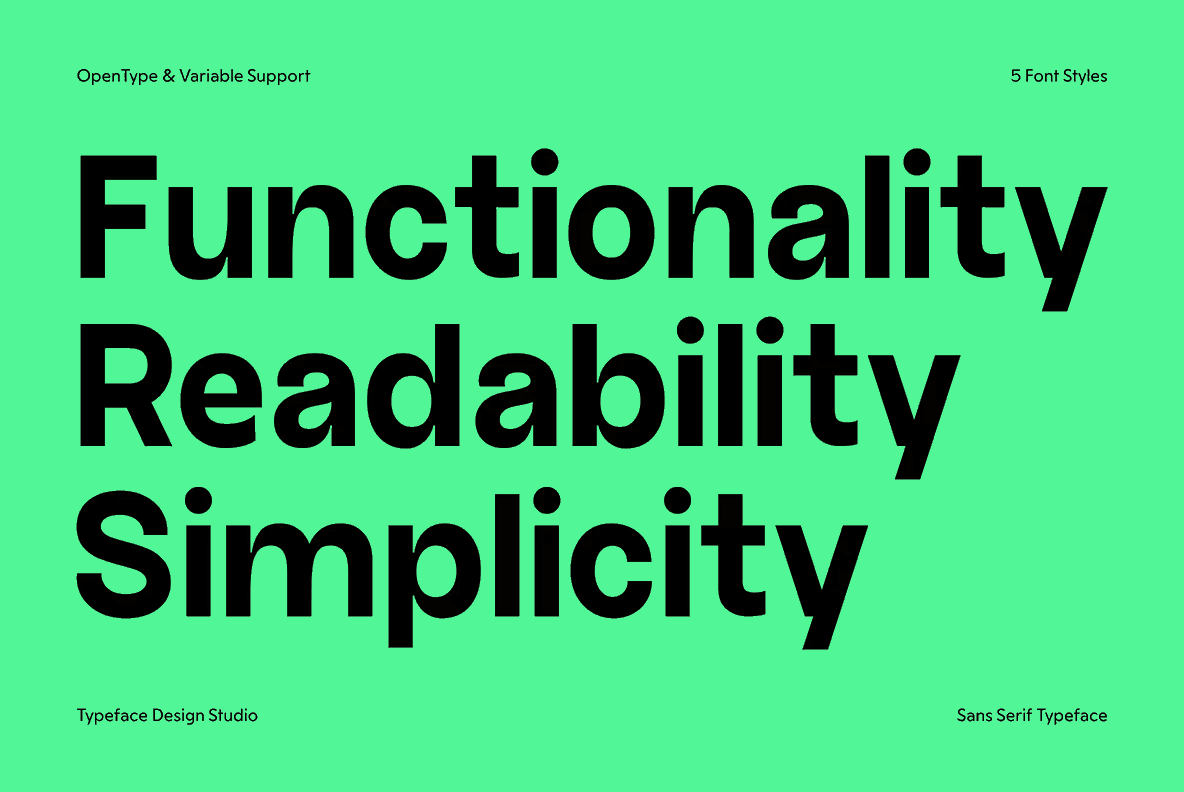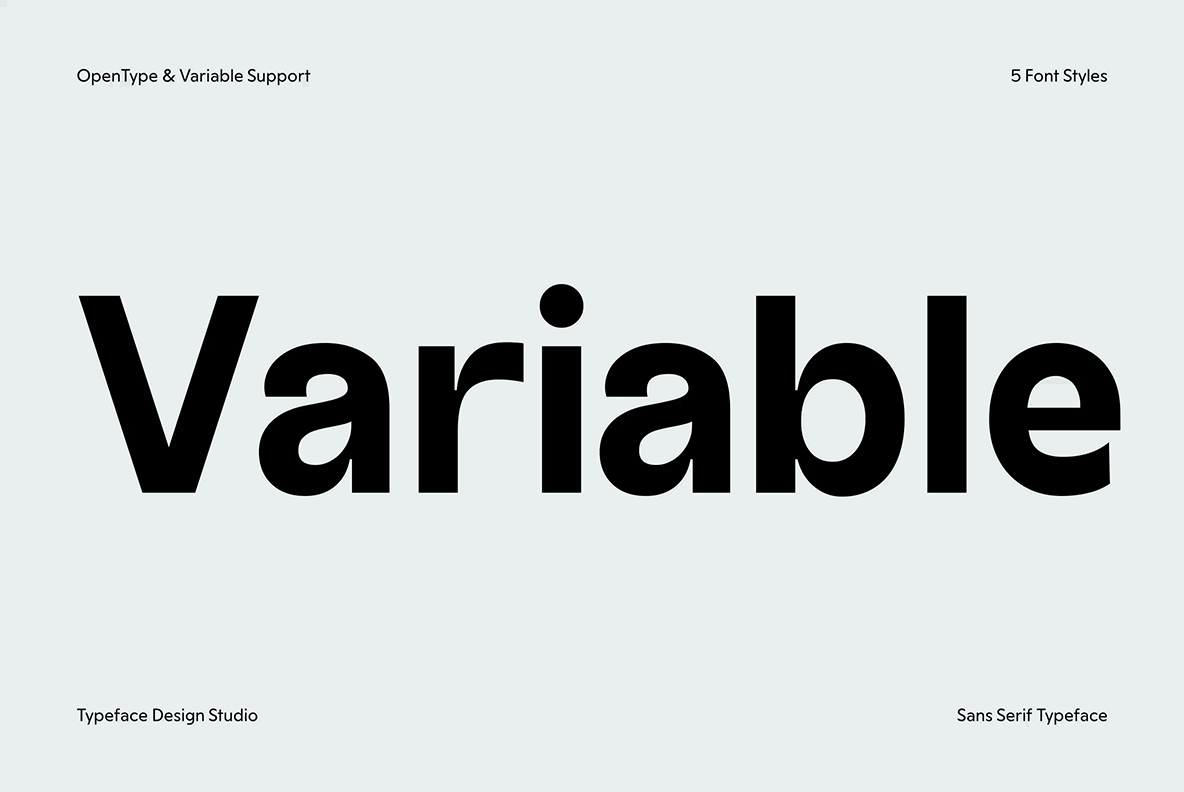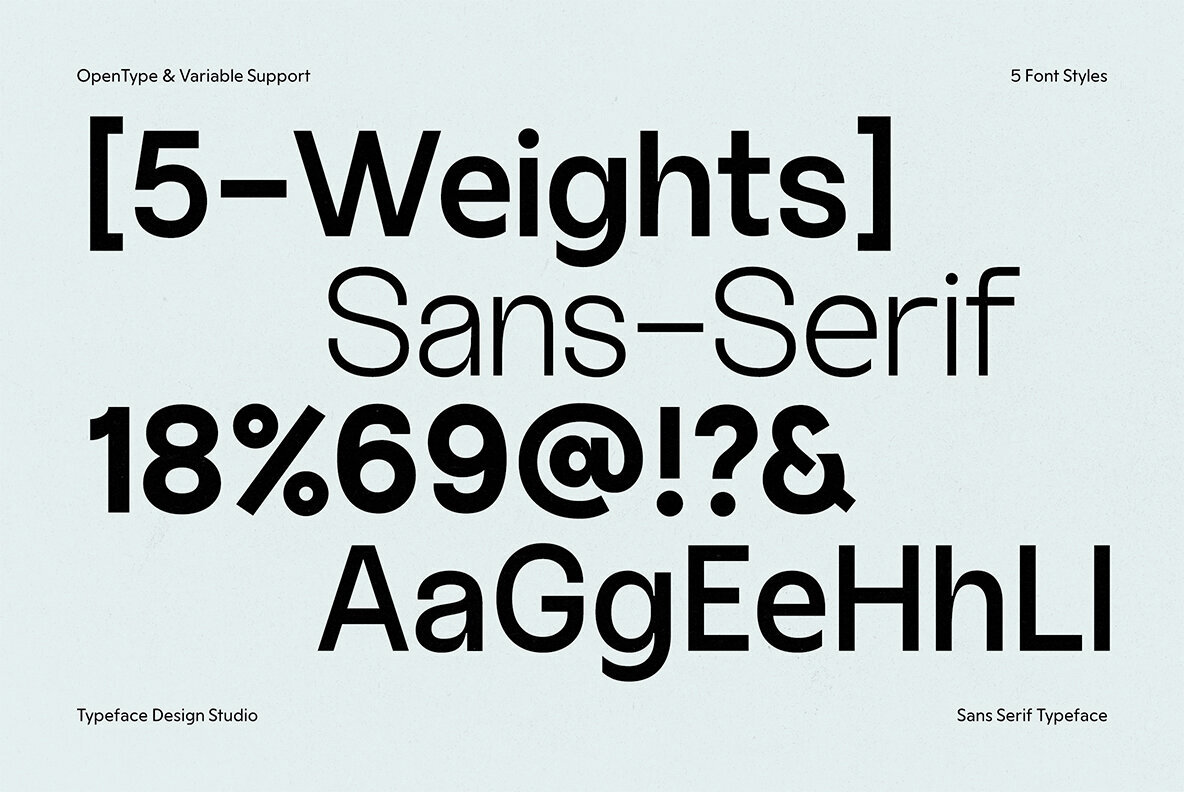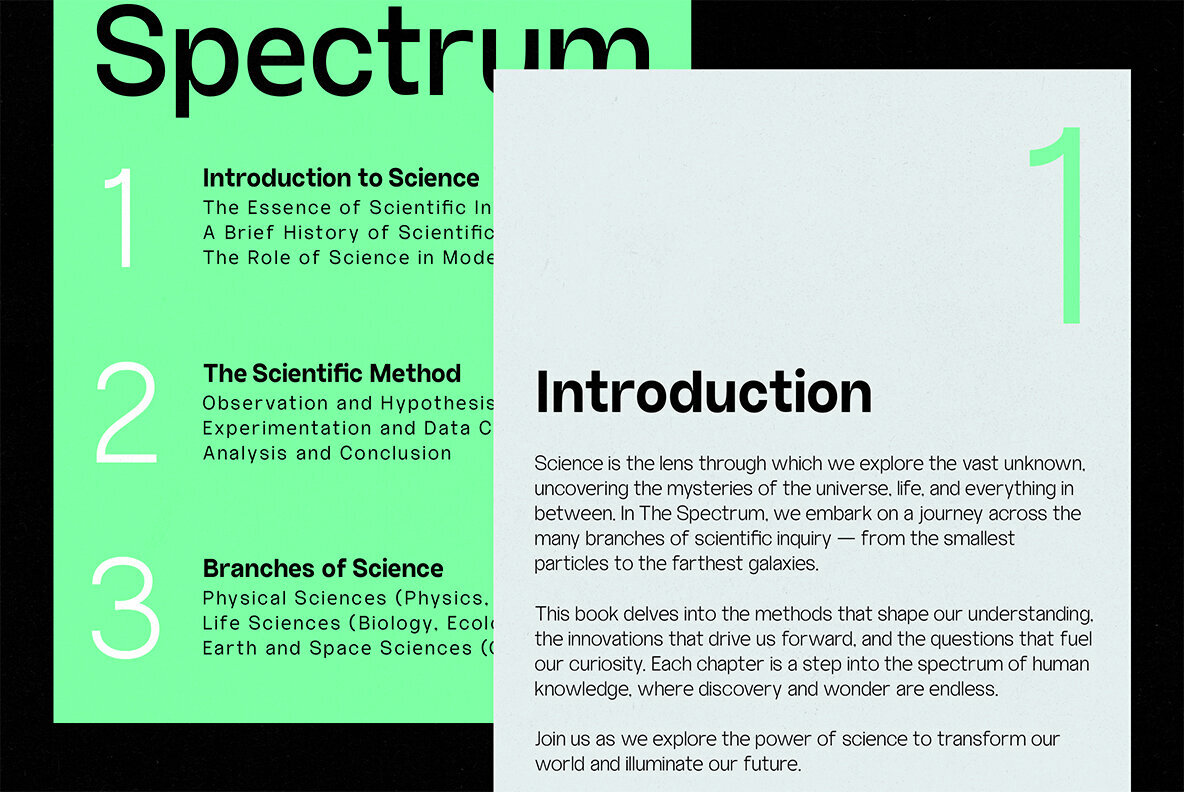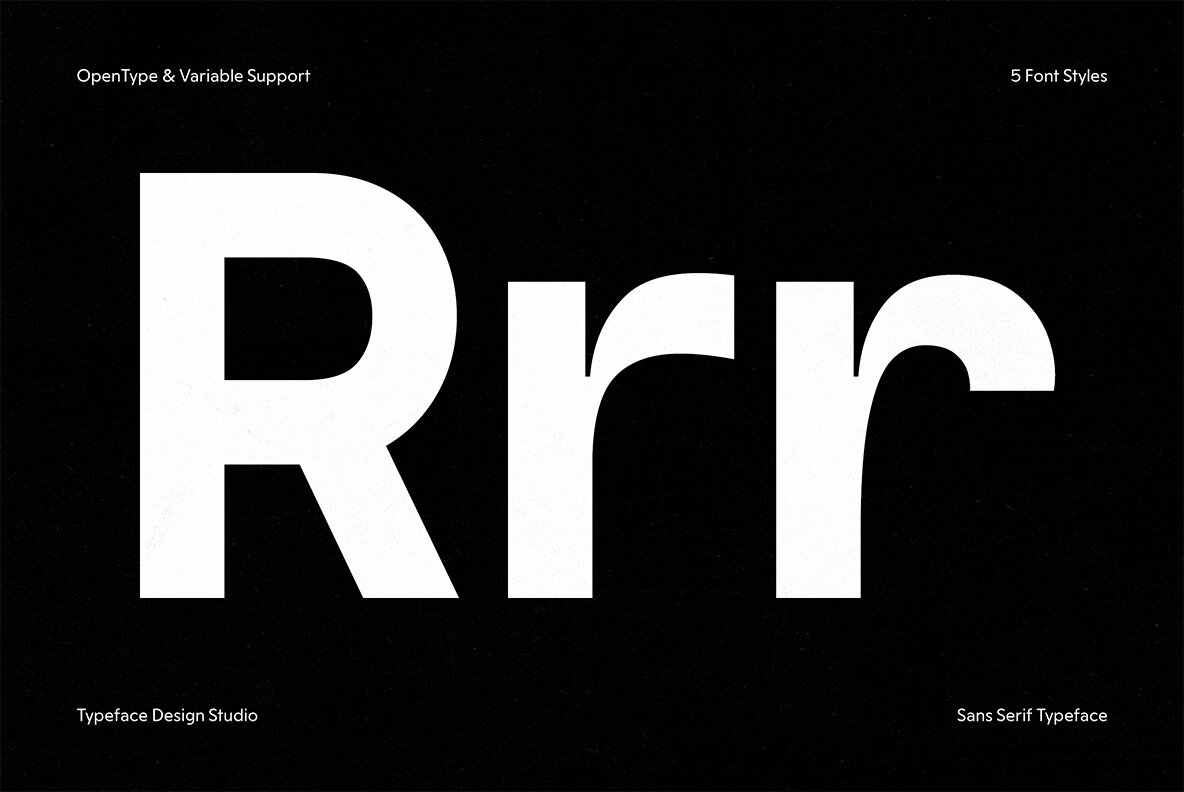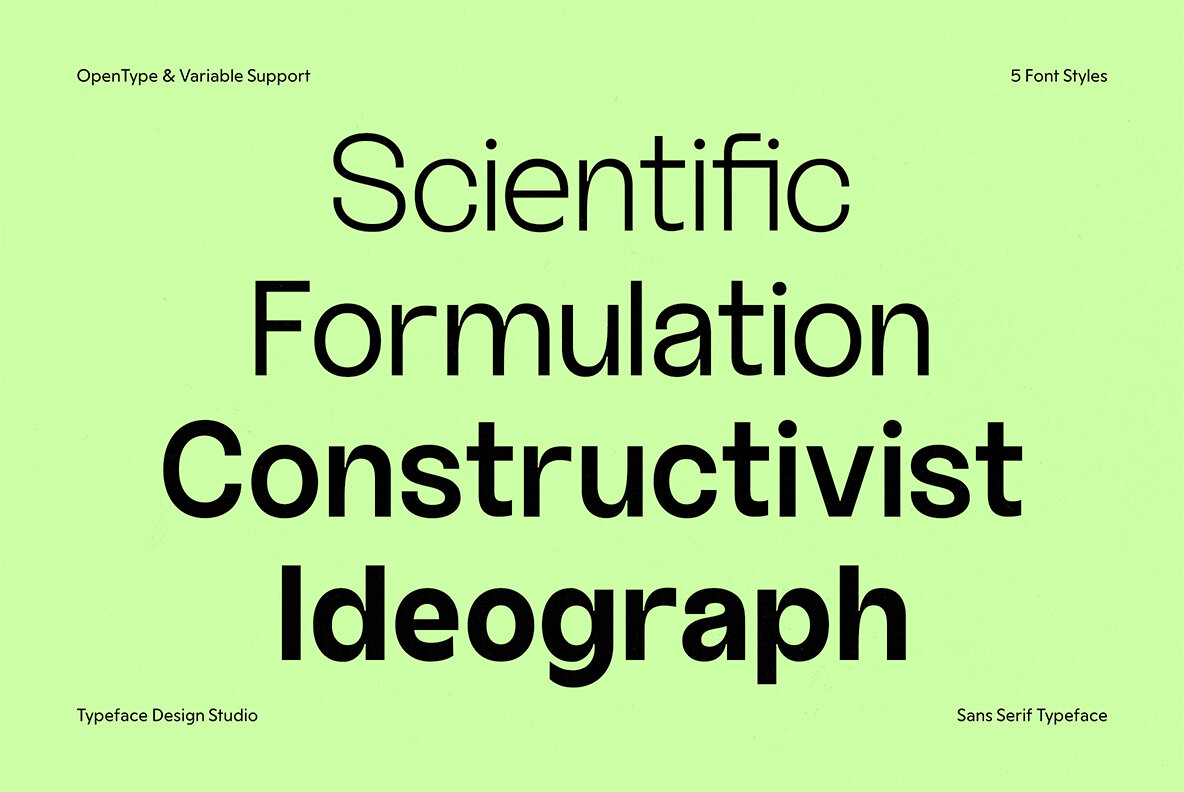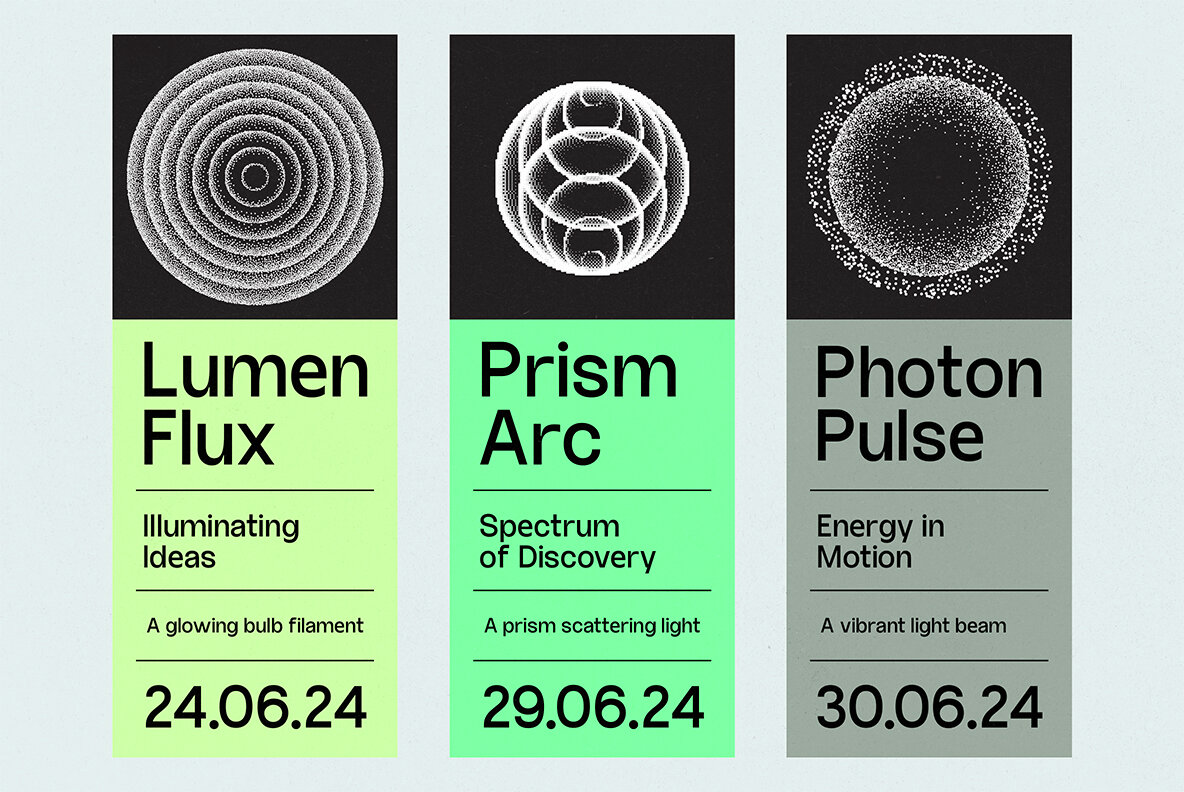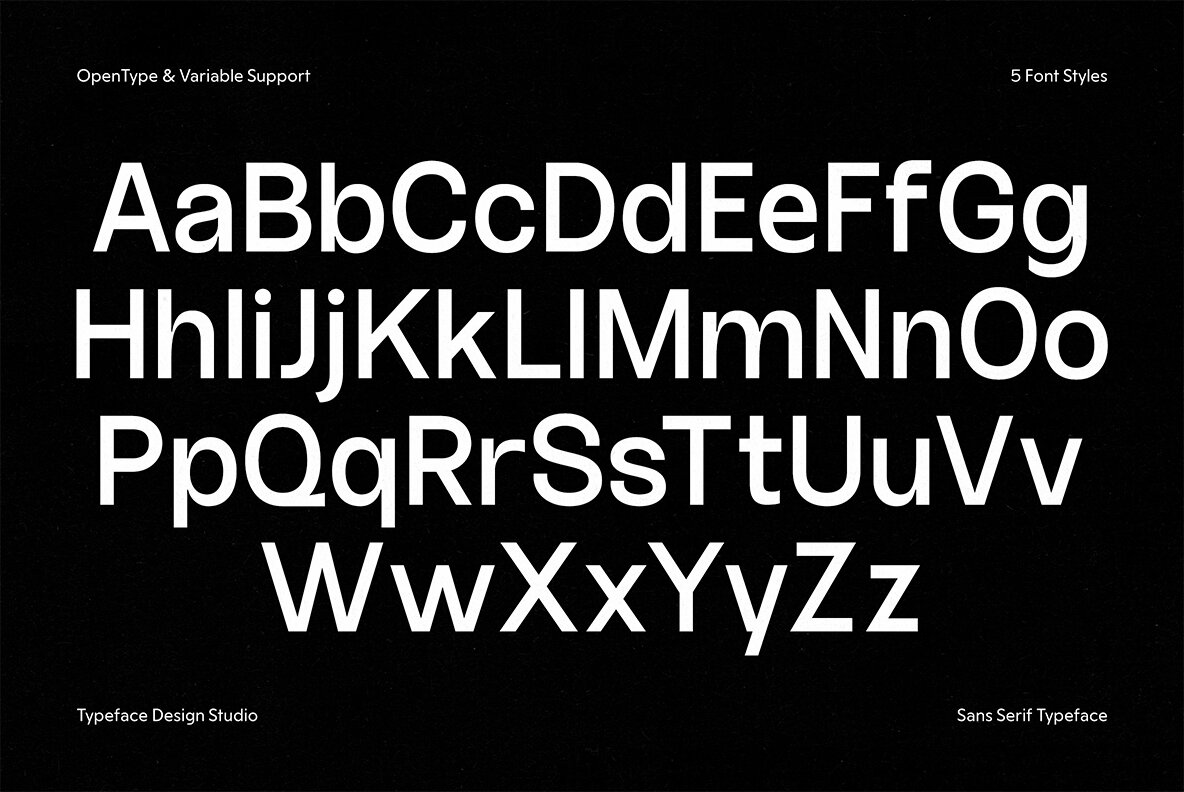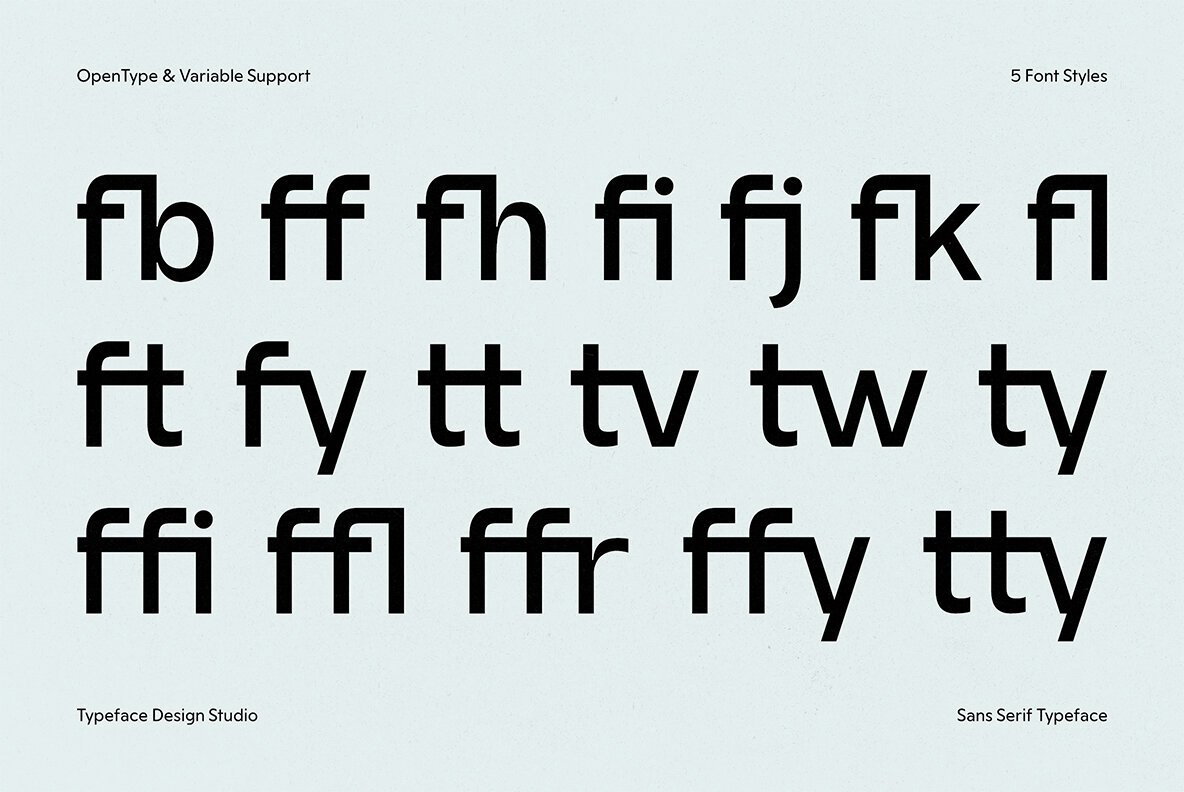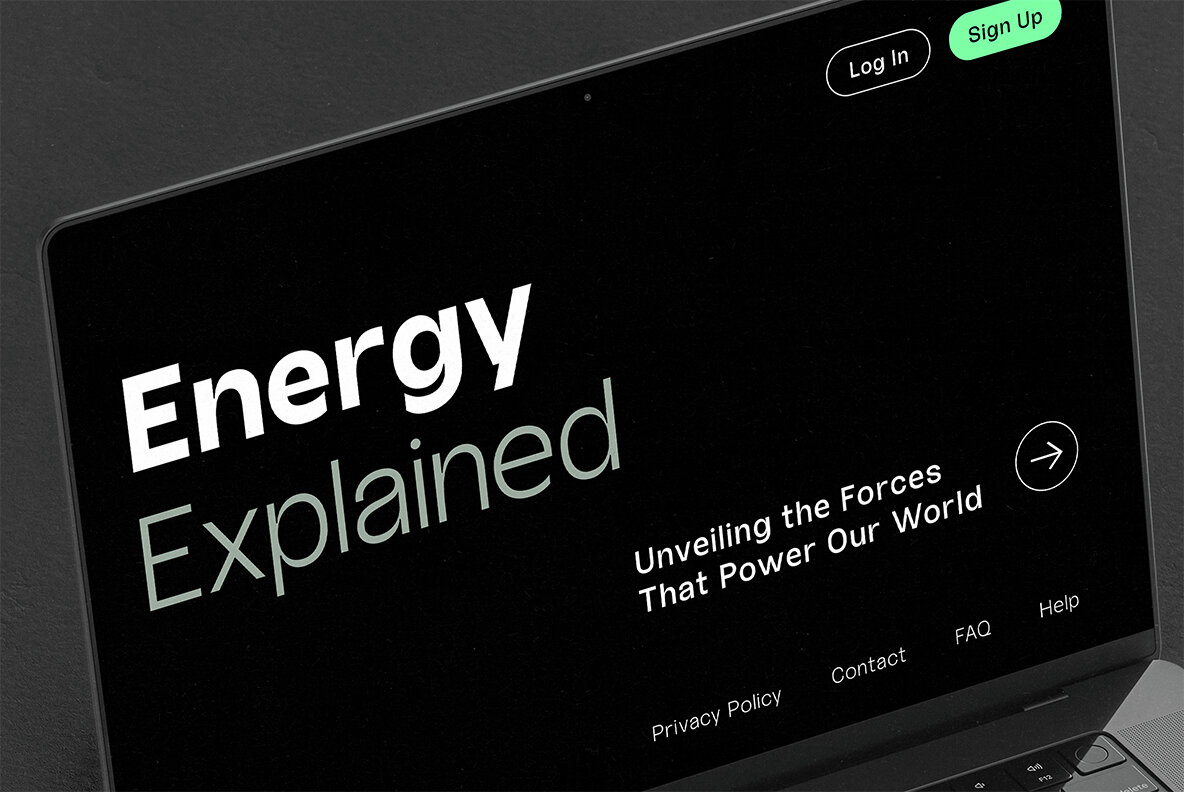
Chlorite Font
Chlorite is a versatile sans serif font family designed for modern professionals. Exclusively available at YouWorkForThem, it balances simplicity with subtle sophistication, making it a go-to choice for corporate branding, web design, and beyond. Chlorite’s geometric precision and modern edge make it ideal for digital-first projects, from user interfaces to marketing materials. Its clean lines ensure clarity, while its thoughtful details set it apart from generic sans serifs. Available now at YouWorkForThem, Chlorite offers a fresh perspective for designers seeking both functionality and style. Additional products used for slideshow images:Chlorite: A Cost-Effective Choice for Contemporary Design
Key Features of Chlorite:
Designed for the Digital Age